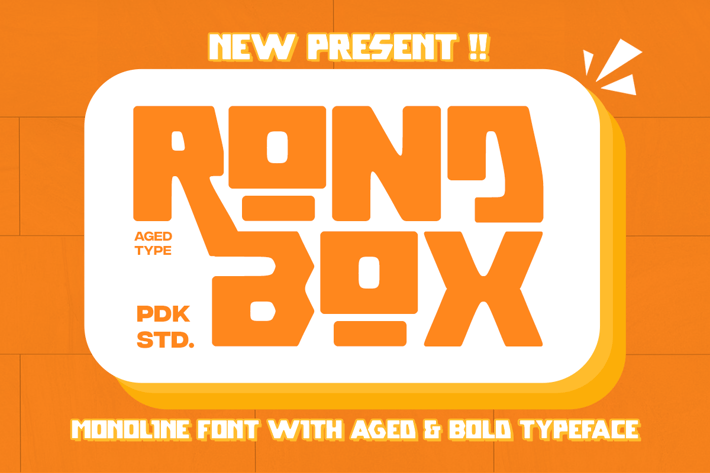
Rond Box - Heavy Sans Font
Introducing Rond Box – a dynamic, extra-bold font designed to make your brand stand out with unmatched strength and charisma.
Rond Box is a heavyweight typeface elevates your logo, making a memorable impact with its bold strokes and powerful characters. The thick, solid letterforms exude confidence and durability, perfect for brands aiming to convey strength, authority, and a bold identity.
Rond Box is your go-to for commanding attention and leaving a lasting impression in any context.
Uppercase & Lowecase Letters
30 More Unique Ligatures
Unique letterforms
PUA Encoded Characters